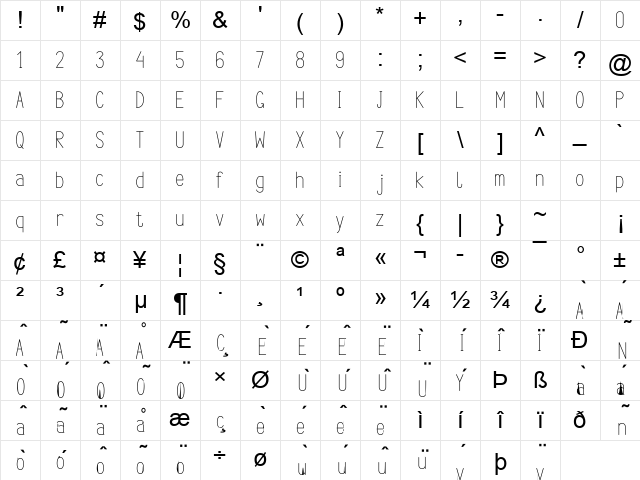
Arial_ver_viper78_7_august_2012 e??O???
Style: e??O???
Foundry: Monotype Typography
Designer: Monotype Type Drawing Office - Robin Nicholas, Patricia Saunders 1982
Design Context for Arial_ver_viper78_7_august_2012
Arial_ver_viper78_7_august_2012 is a composed and adaptable typeface that performs quietly and consistently across a wide range of design contexts.